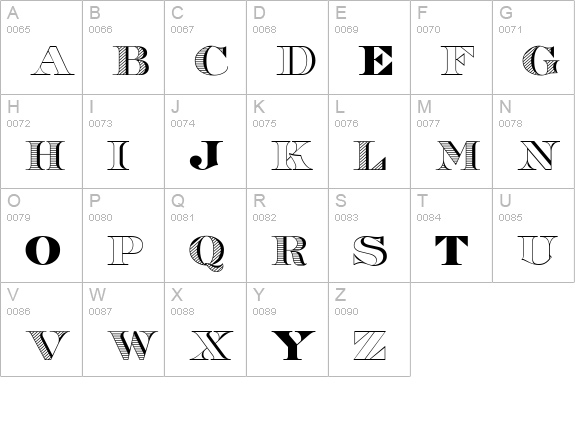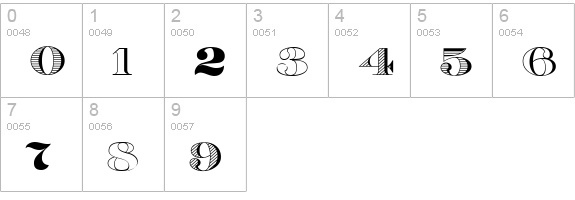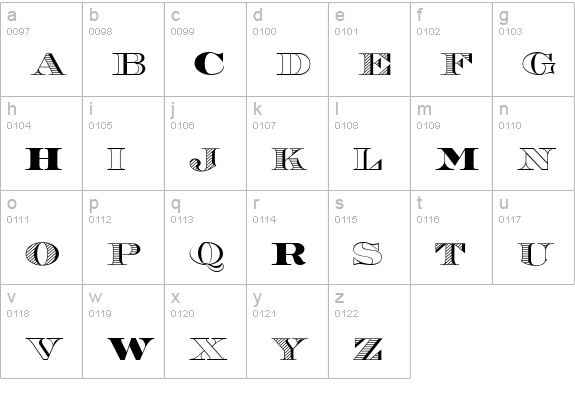
Roman38-Sample Font Details
Roman38-Sample font is a sophisticated and elegant typeface that exudes a classic charm with a modern twist. Its timeless design is perfect for a wide range of projects, from branding to editorial design. The clean lines and sharp serifs of Roman38-Sample font make it a versatile choice for both print and digital applications. What sets Roman38-Sample font apart is its seamless blend of traditional Roman typography with a contemporary aesthetic, resulting in a font that is both stylish and easy to read. Whether you are creating a logo, designing a website, or laying out a magazine spread, Roman38-Sample font will bring a touch of sophistication to your work. Best of all, Roman38-Sample font is available for free download at FontsMarket.com. This means you can easily access this high-quality font without any cost, making it an excellent choice for designers on a budget. With its timeless appeal and modern sensibility, Roman38-Sample font is sure to elevate any design project to the next level.